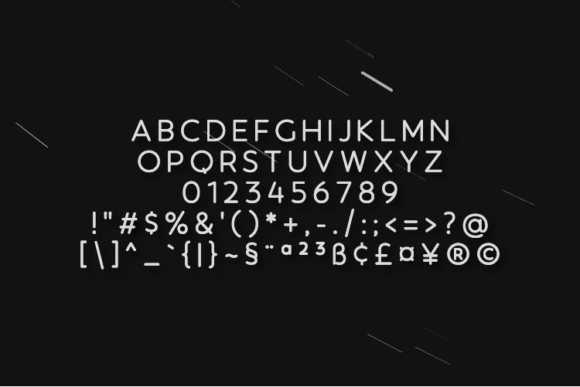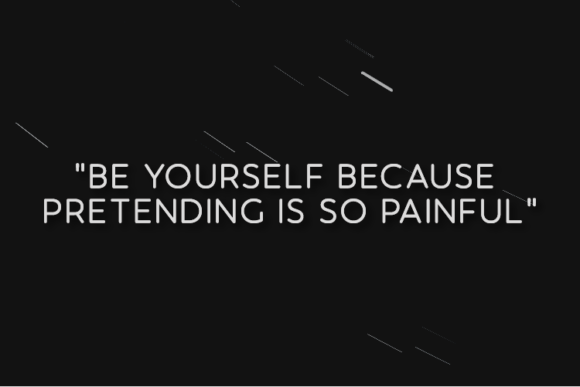
Introduction to Roech Font
Have you ever stared at a blank design canvas, feeling stuck and unsure where to start? For many creatives, the perfect font can be the key to unlocking inspiration and bringing a project to life. Recently, I found myself in this very situation, searching for the perfect sans serif font to add a touch of elegance to my design. That’s when I stumbled upon the Roech Font, a simple yet striking typeface that has since become a staple in my design toolkit.
As a valuable resource for designers, the Roech Font offers a high-quality, clean feel that’s perfect for both formal and non-formal designs. With its transparent background and beautiful arrangement of letters, this font is an excellent choice for any creative project that requires a professional touch.
Key Features of Roech Font
- High-quality design resource ideal for creative projects, offering a sophisticated and elegant look.
- Comes with a transparent background, making it versatile for use in various design applications.
- Unique characteristics include a modern, minimalist aesthetic and a wide range of font styles and weights.
Honest Review: Roech Font
I recently stumbled upon the Roech Font, and I must say it’s a great addition to any designer’s toolkit. As a design resource, it offers a high-quality font that’s perfect for any creative project.
Here are some of the features that I like about Roech Font:
- Transparent background for easy use with images
- Sleek and modern design that’s perfect for any project
However, I did notice a few limitations with Roech Font:
- Only a few font weights are available, which may limit its use in certain projects
- The font may not be as customizable as some other fonts on the market
Roech Font
The Roech Font is a high-quality design resource ideal for creative projects. It features a transparent background, making it perfect for layered designs. To get the most out of this font, follow these steps:
To get the most out of the Roech Font, use it in conjunction with other high-quality design resources. Experiment with different font sizes, colors, and layering techniques to create unique and eye-catching designs.
The Roech Font is ideal for a variety of creative projects, including: